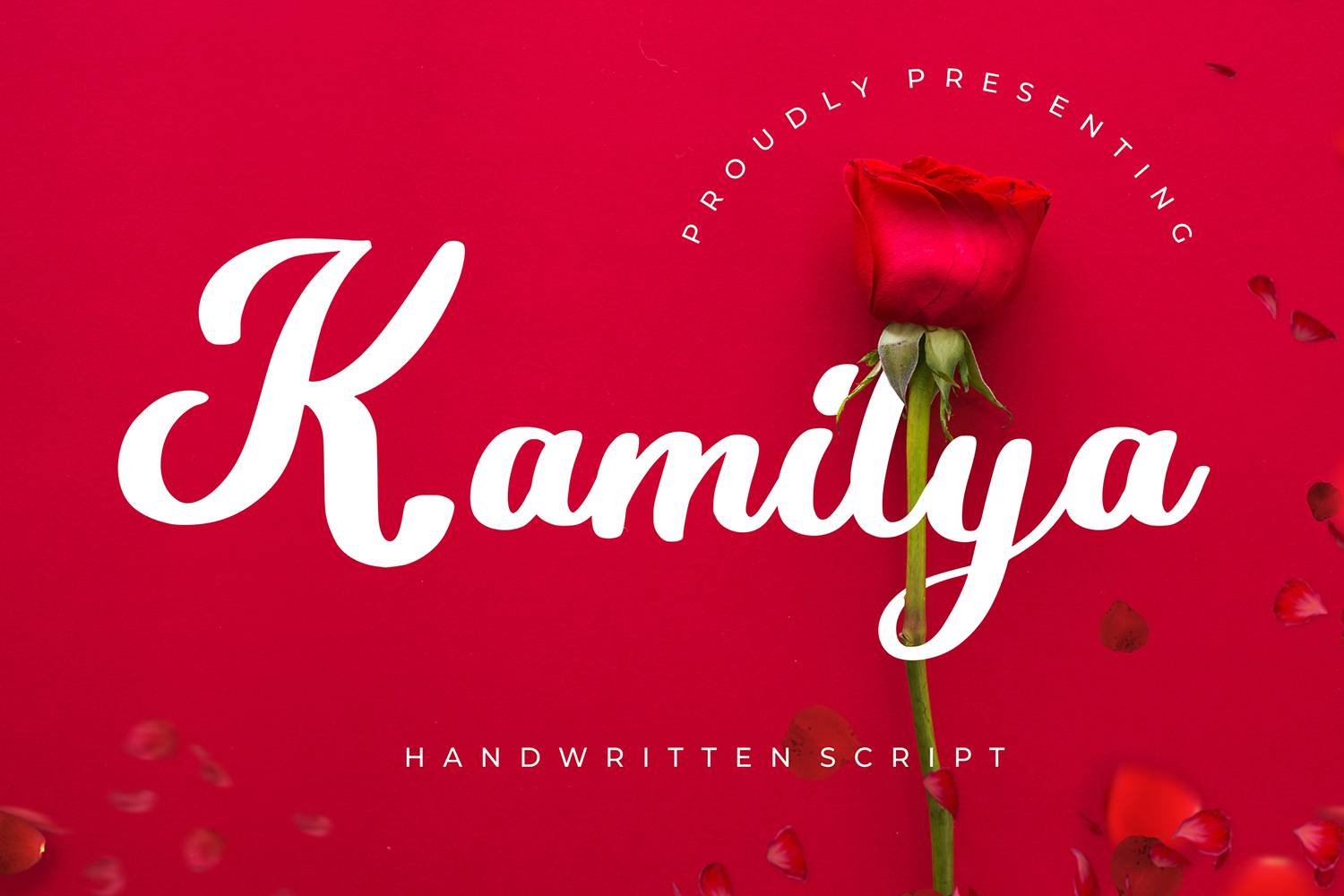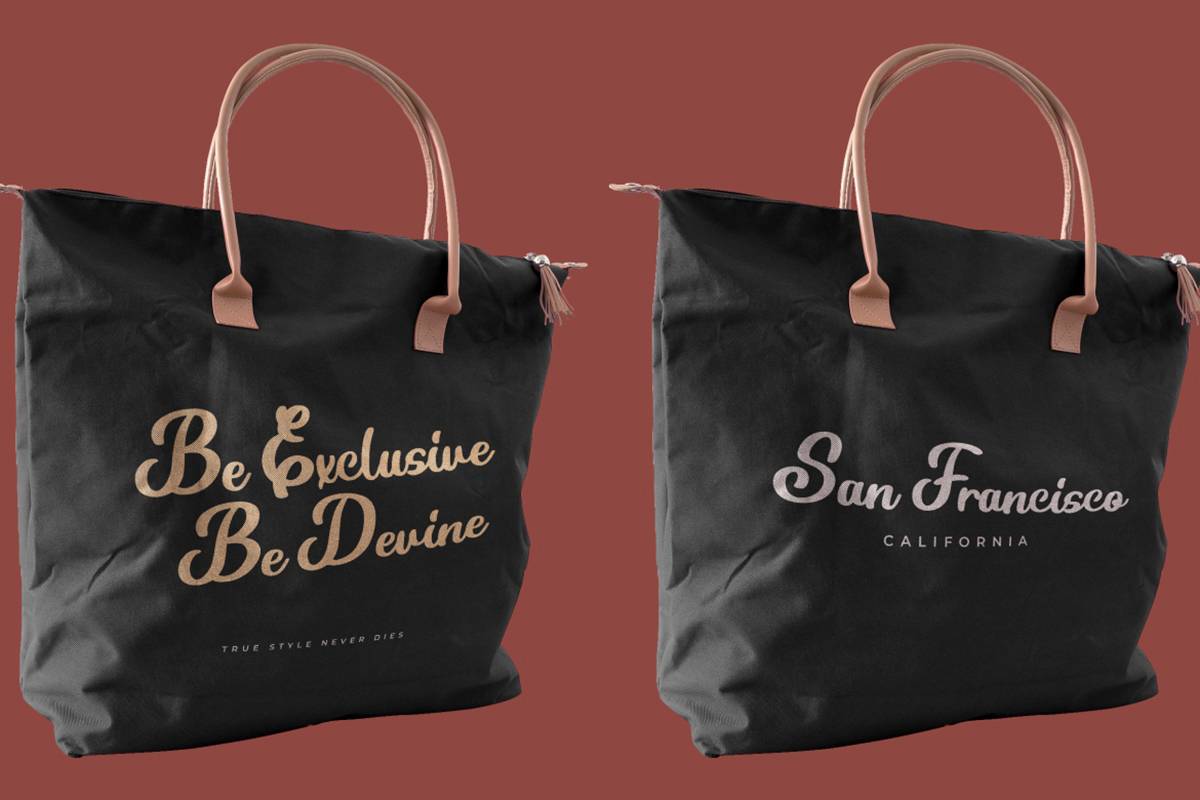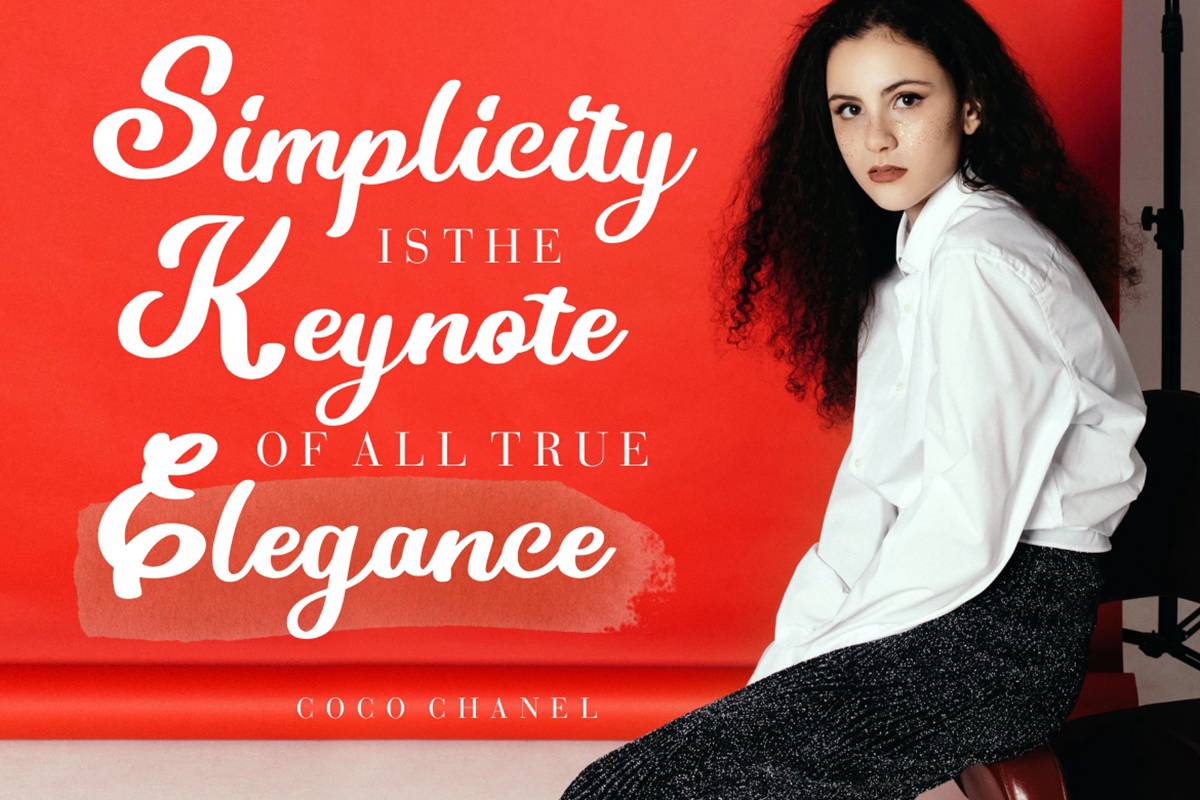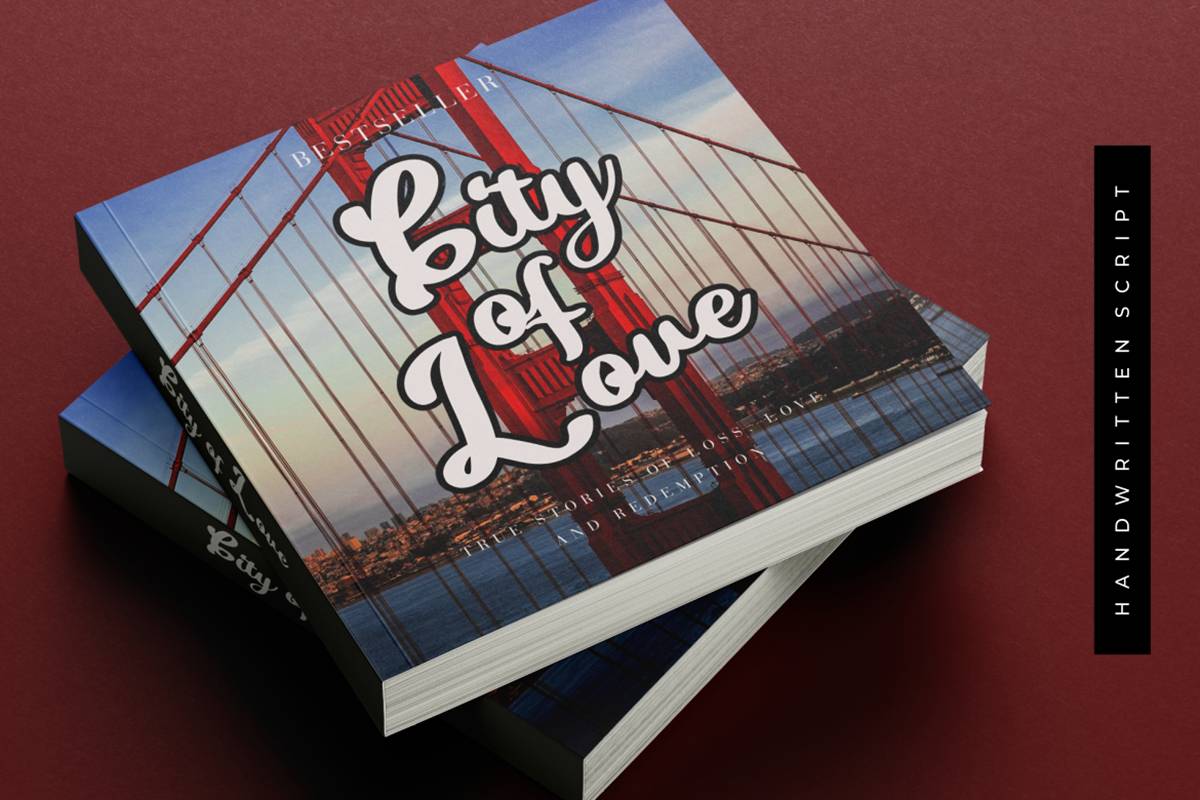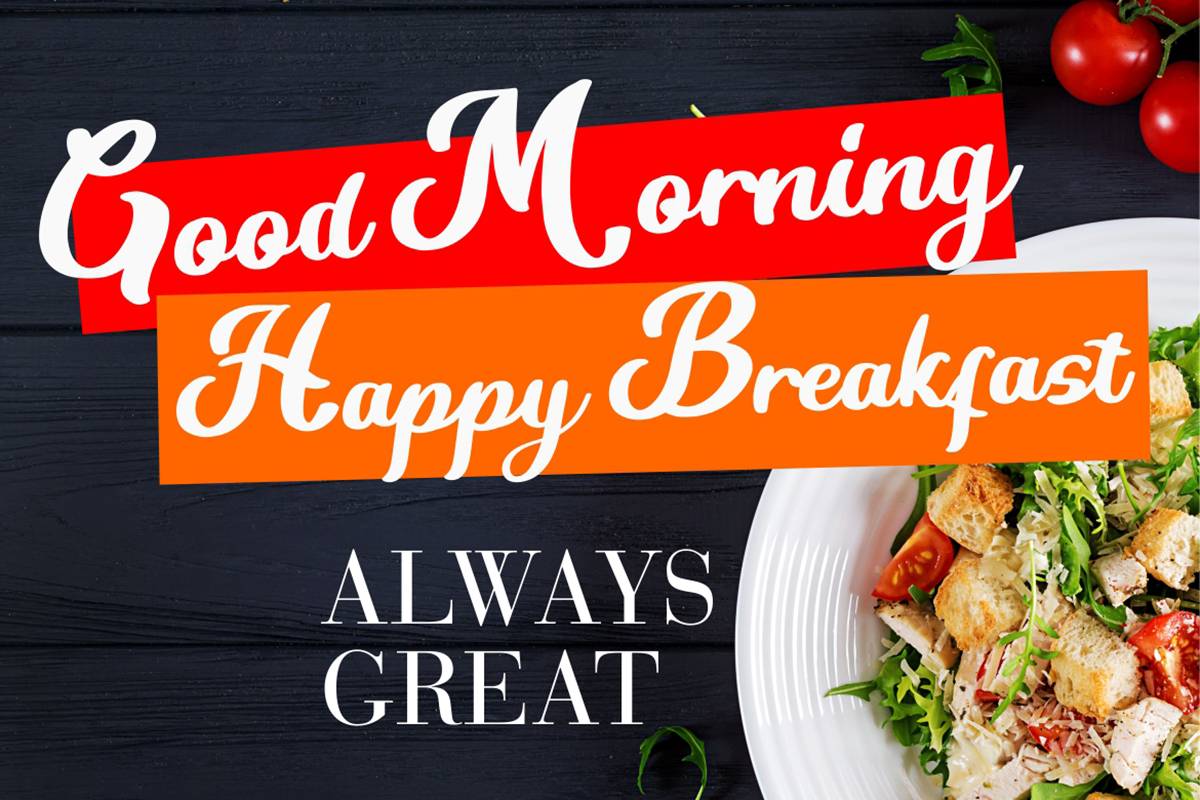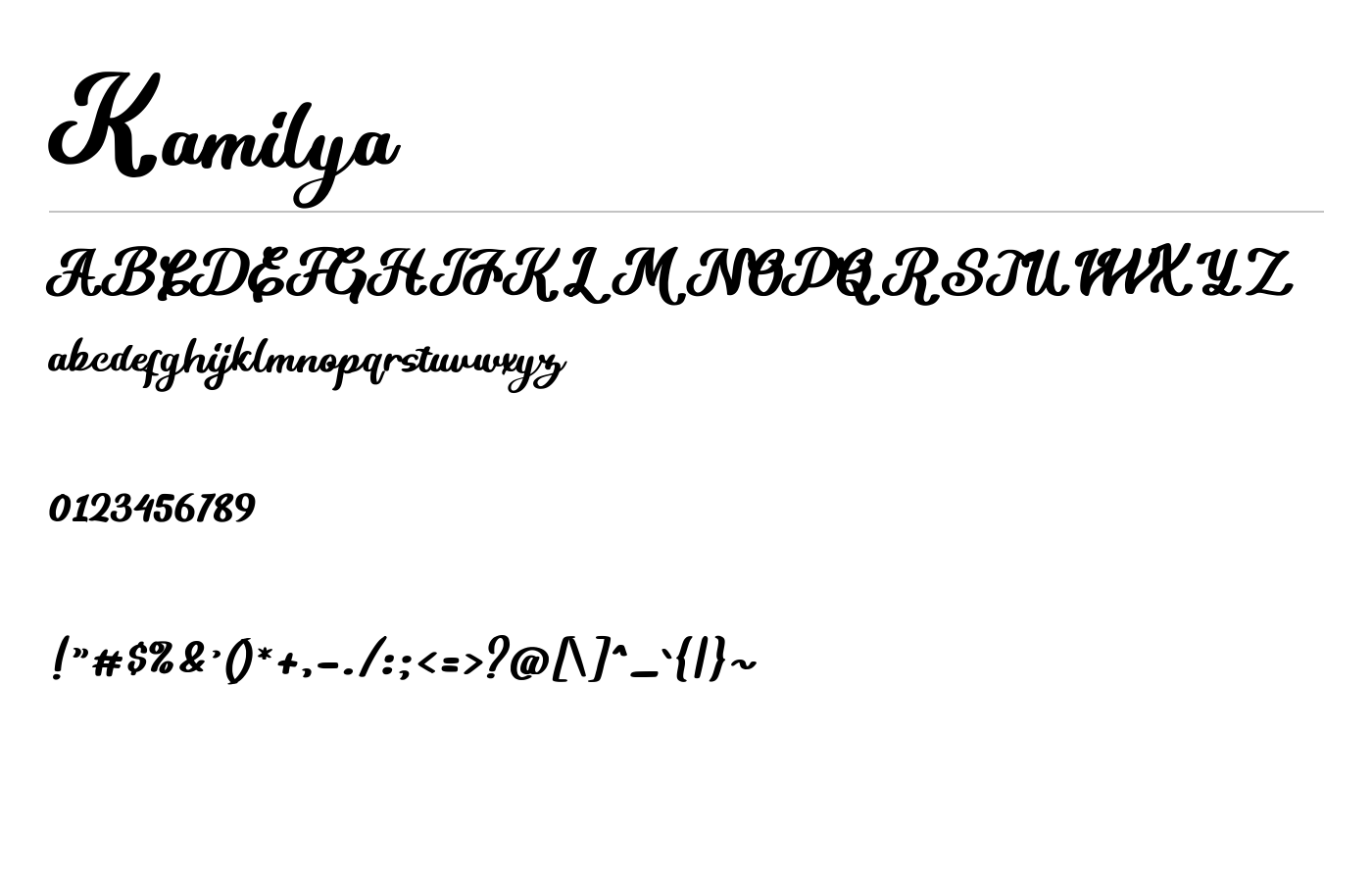
Kamilya is a stylish script font with a bold, smooth flow that exudes a sense of elegance and warmth. Its connected, rounded letterforms and moderate contrast make it ideal for decorative purposes, such as branding, invitations, and headlines where a personal, inviting touch is desired. This font works well in creative and feminine contexts, adding a charming and heartfelt personality to any design.
Kamilya Font